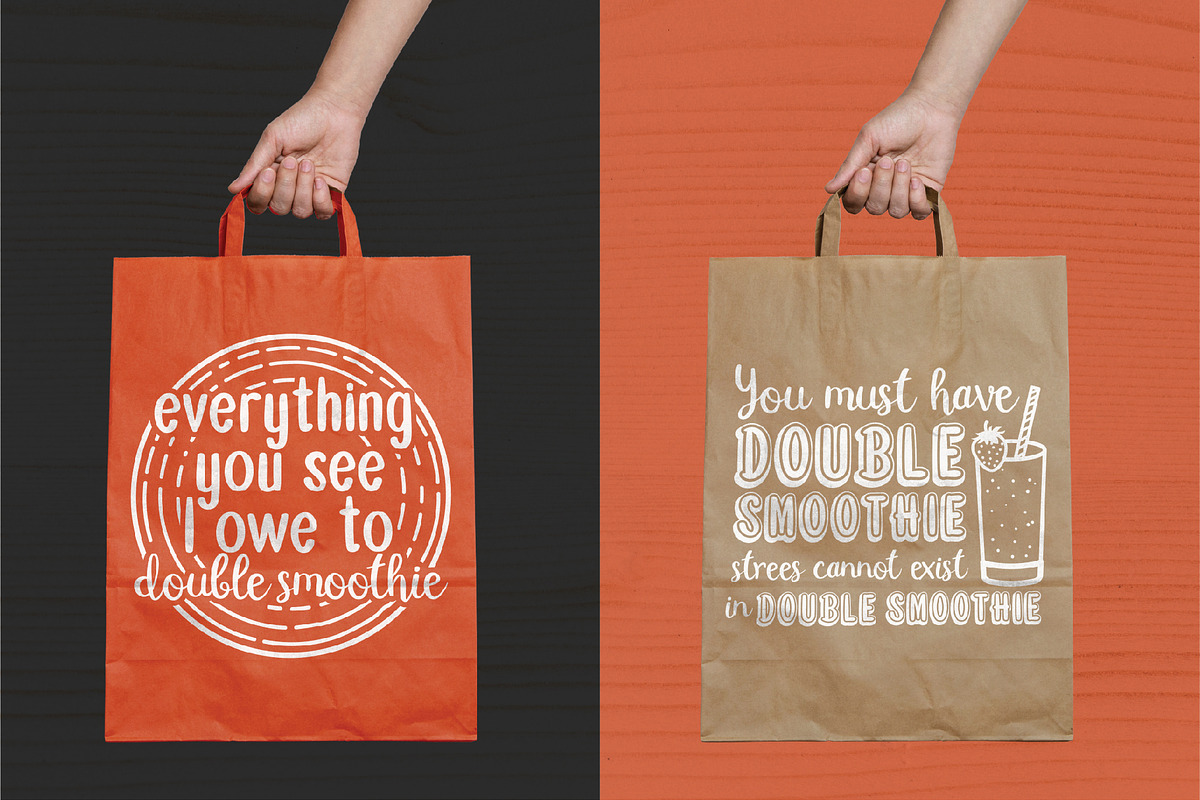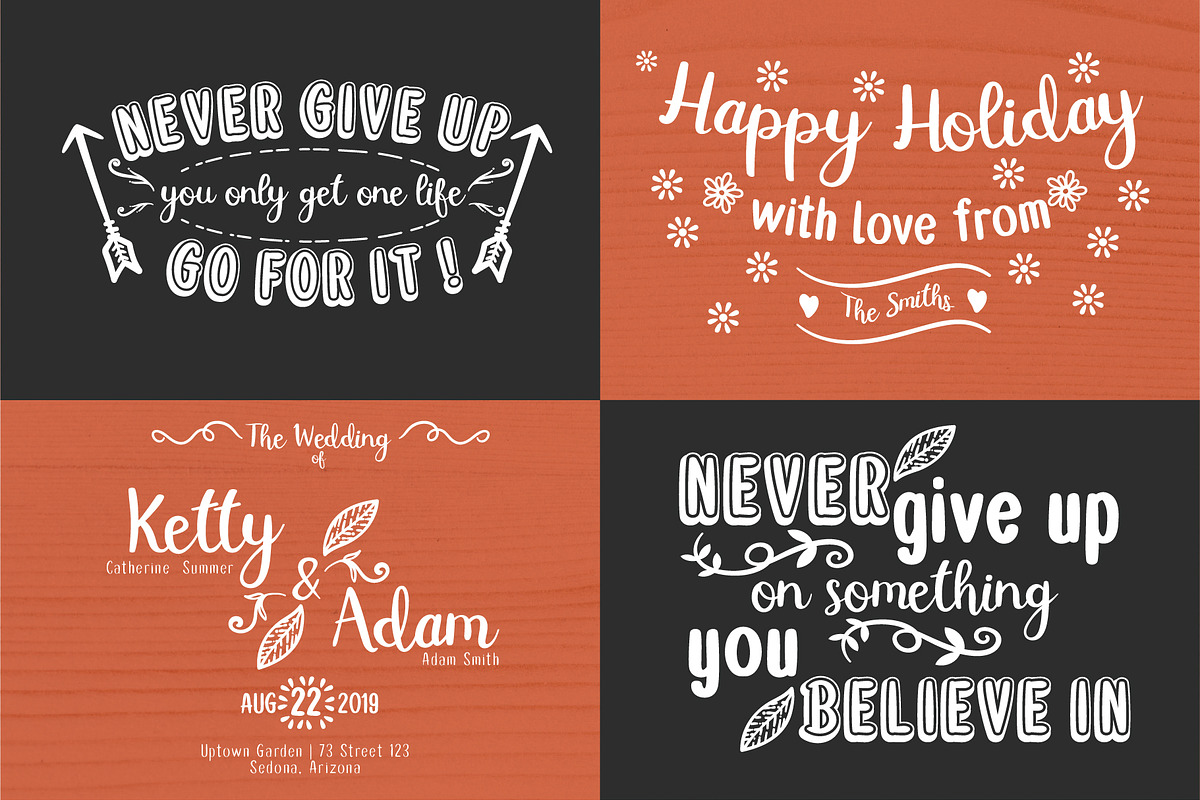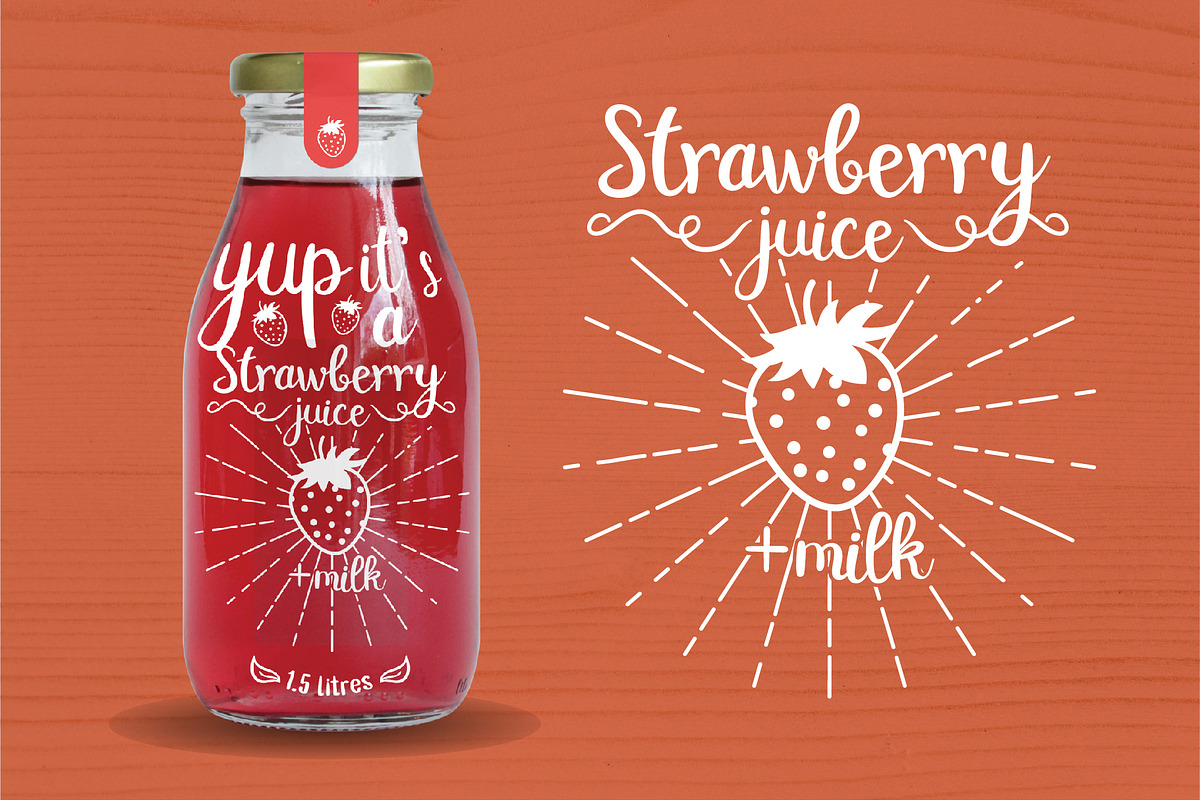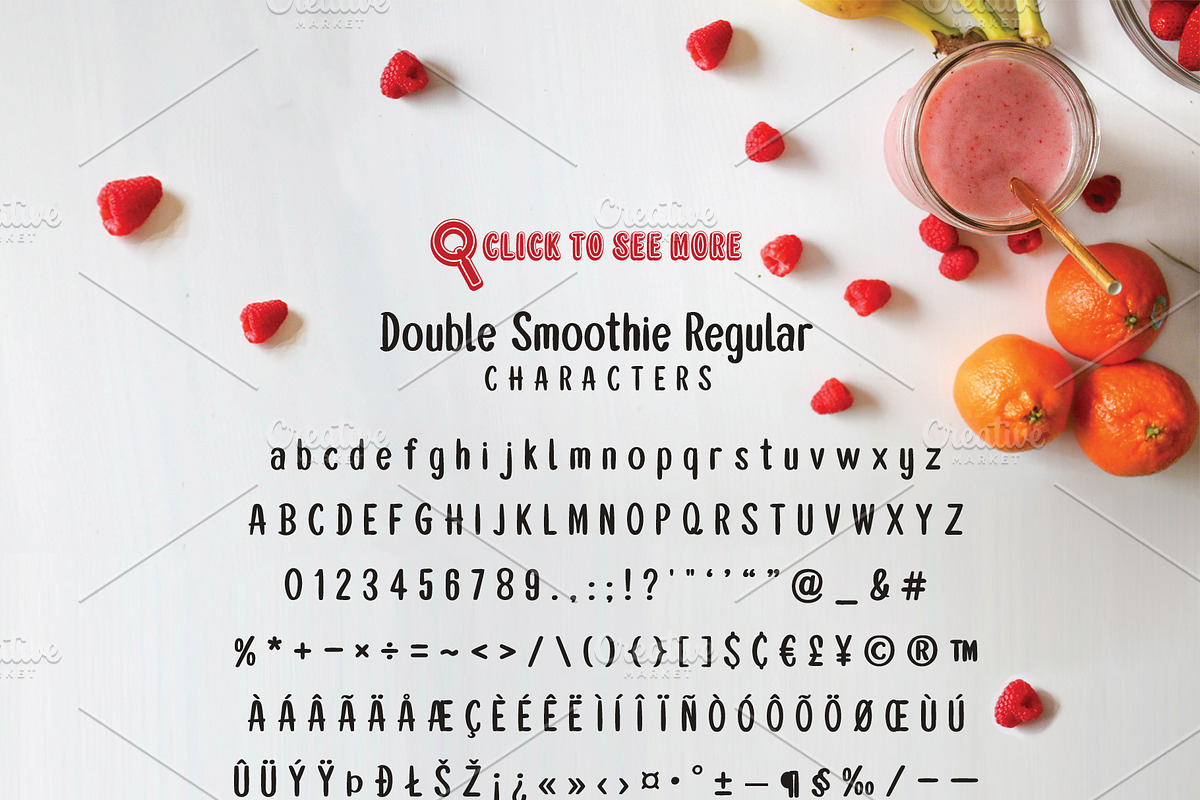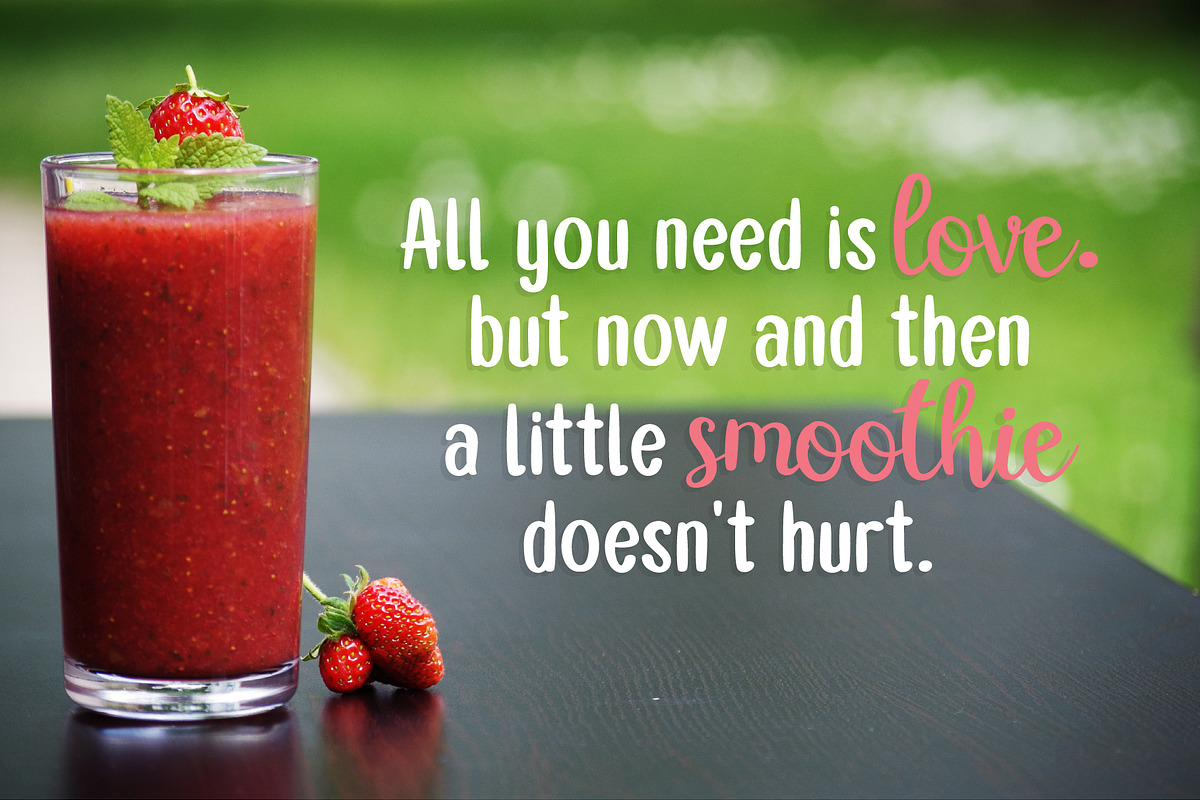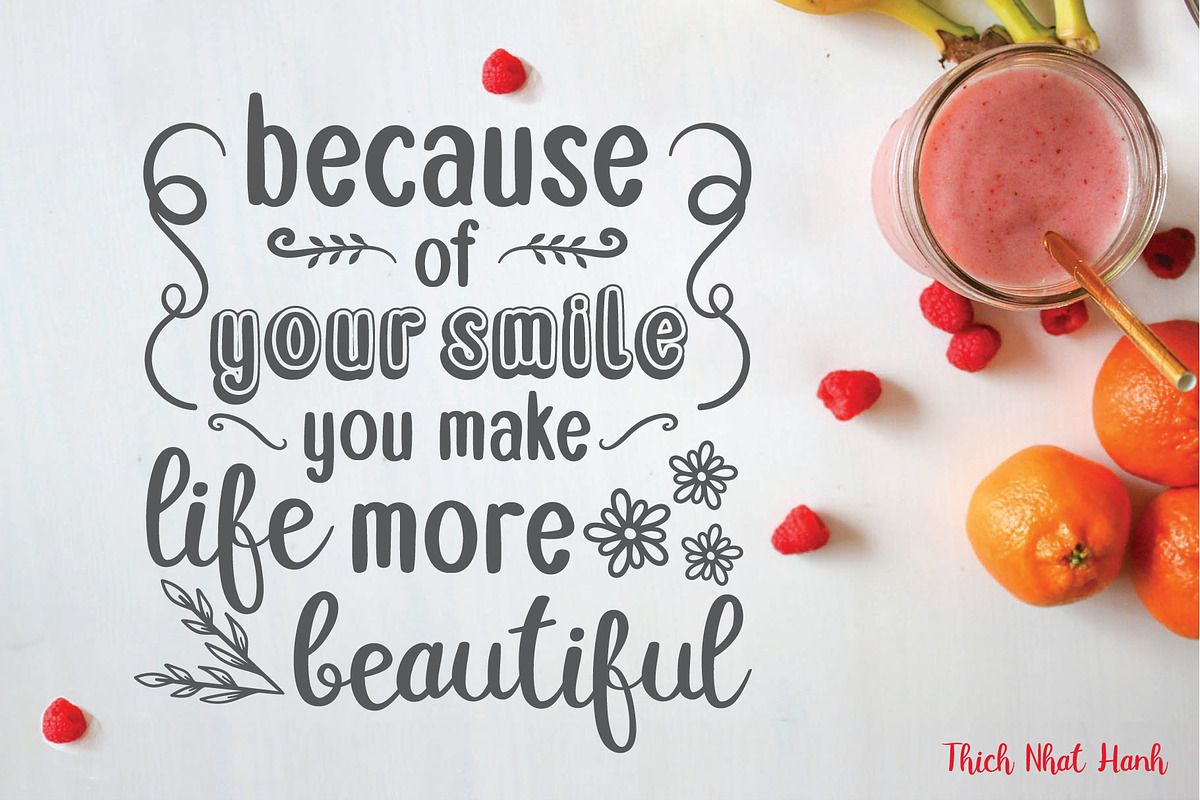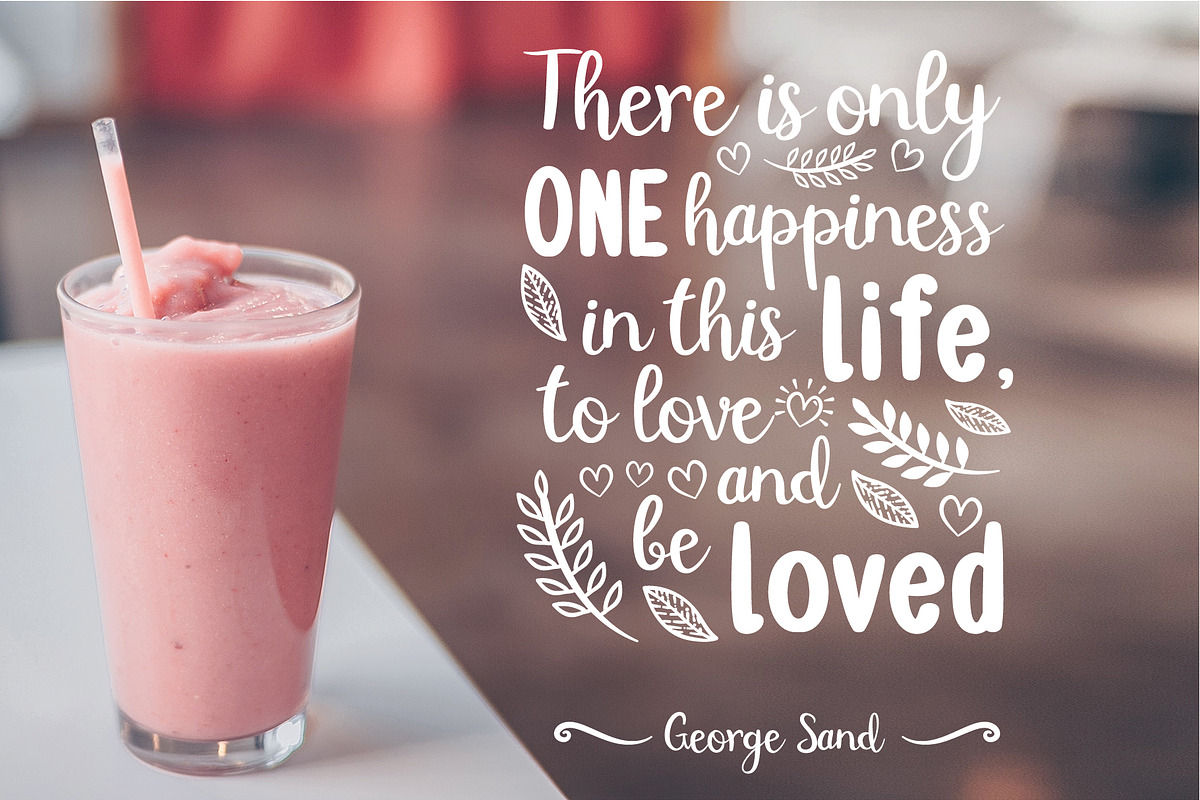
Double smoothie font duo & family
Introducing Double Smoothie… A fun font duo with family and bonus doodles. Double smoothie is hand drawn brushed typeface, with smooth stroke and cute shape, is perfect for any kind of design such us wedding, greeting cards, fashion and etc.
Why Double smoothie font duo & family is worth a look
Double smoothie font duo & family by LTNG STUDIO fits naturally into Branding, posters, packaging, typography.